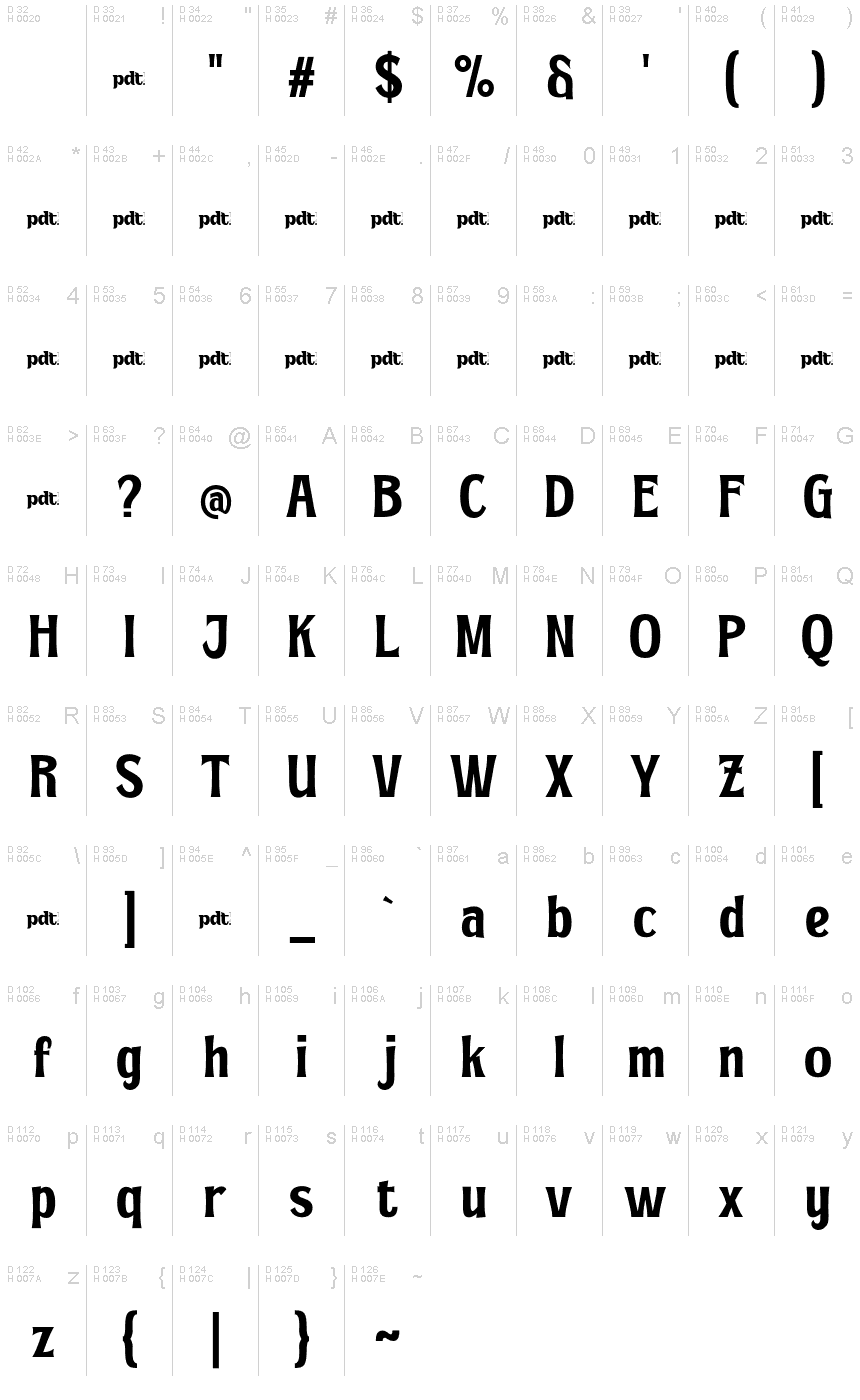
AKOODI by Rozi of Productype is a retro display font that's perfect for projects that require a bold, eye-catching aesthetic. With its semi-bold weight and semi-condensed width, AKOODI is versatile enough to be used in everything from vintage-style posters and signage to modern digital designs. Its unique, playful style makes it ideal for branding projects, logo design, packaging design, and more. Whether you're looking to create a retro-inspired look or add some personality to your designs, AKOODI is the perfect choice for any project that needs a bold and distinctive display font.